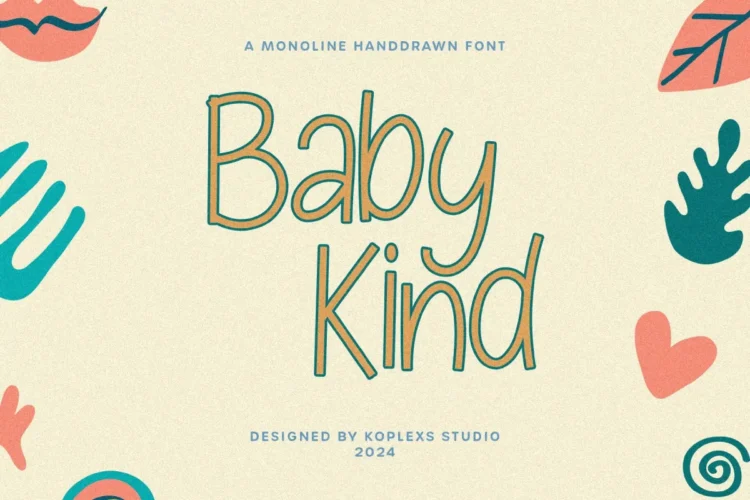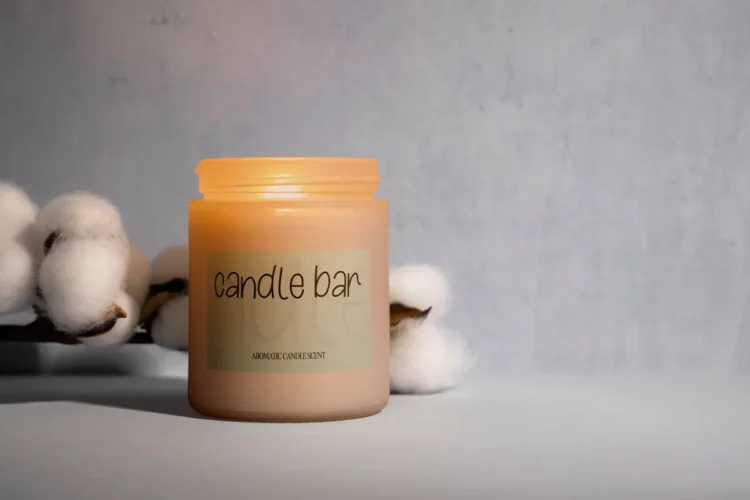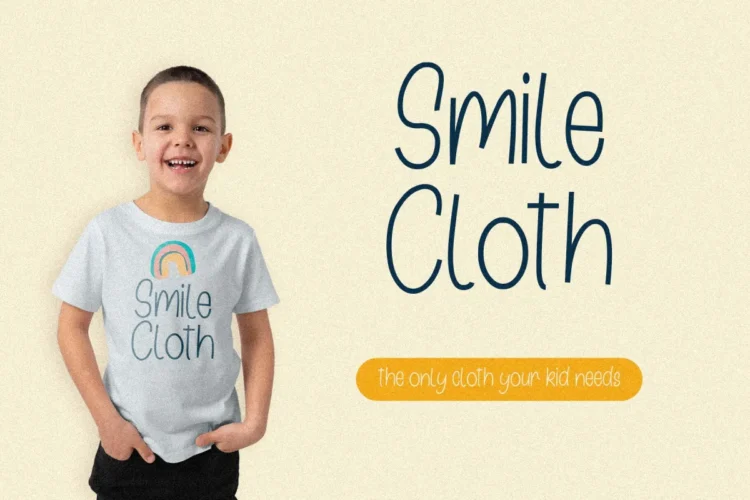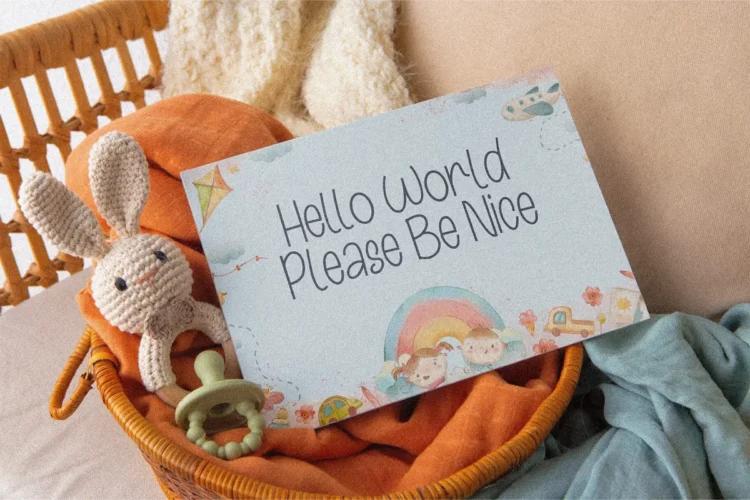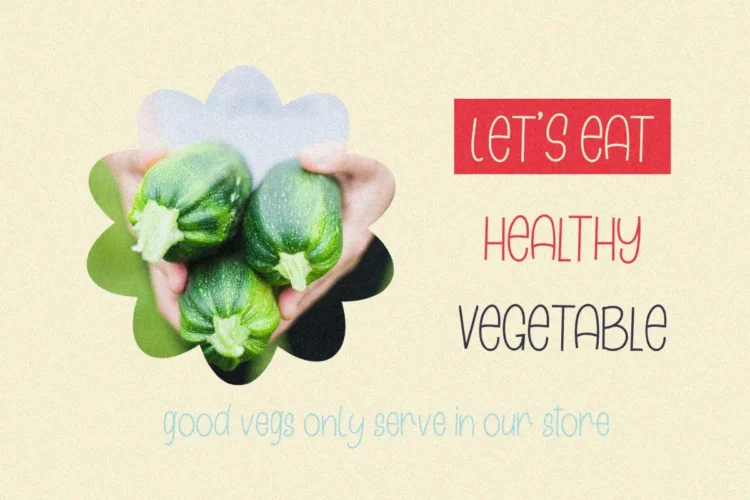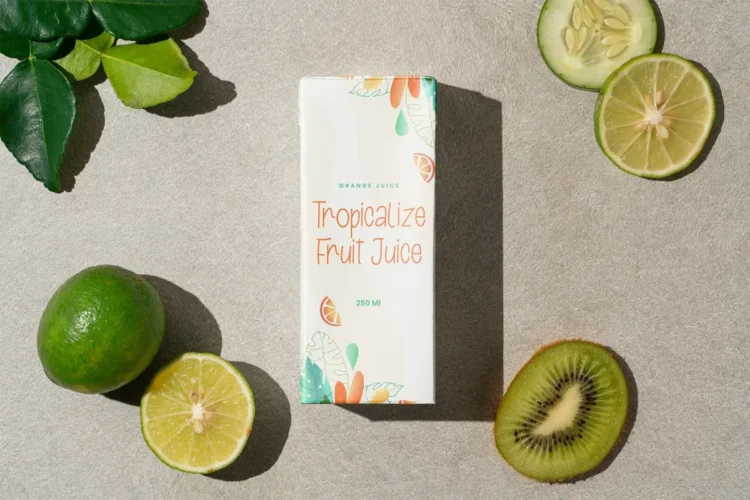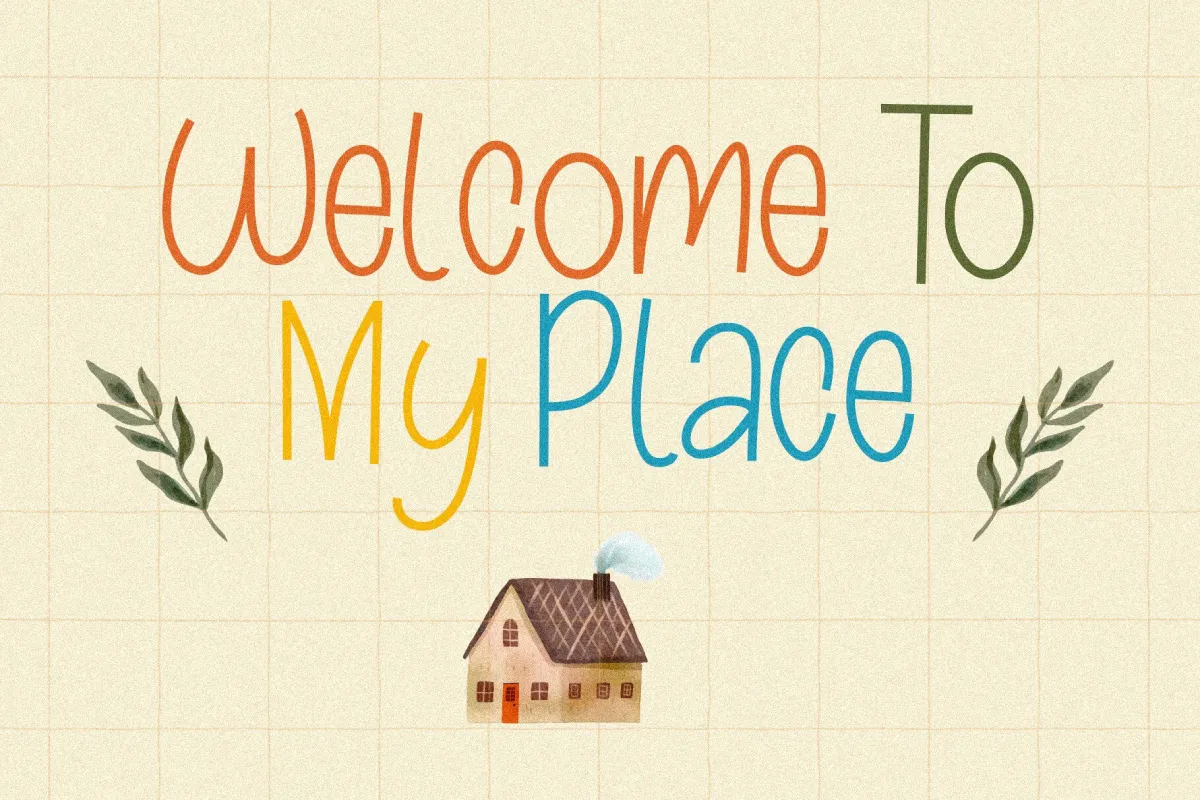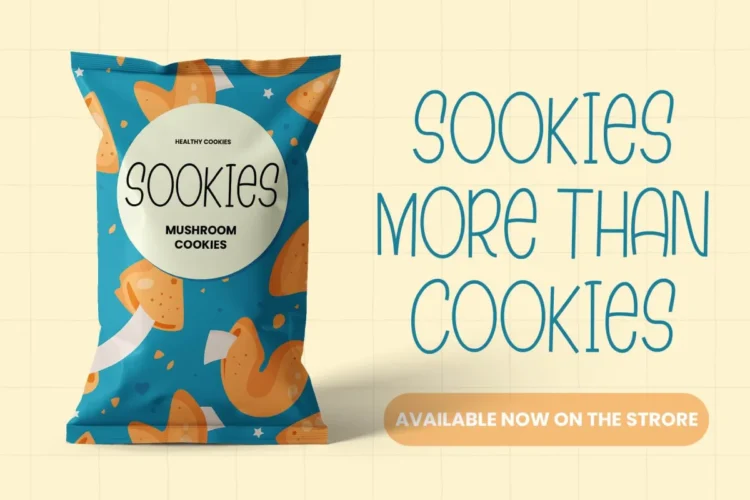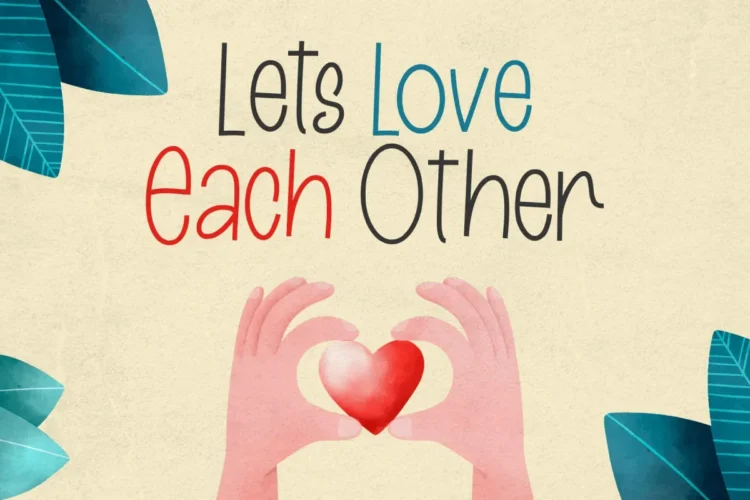
Baby Kind Font
✨ Baby Kind Font – A Cute, Funny, and Handwritten Font for Playful Designs
Meet Baby Kind Font, a monoline handdrawn handwriting font designed to bring happiness, warmth, and creativity into your projects. Its playful curves and friendly strokes make it a cute font and funny font choice for any designer who loves to create cheerful, kid-friendly visuals.
This freaky font perfectly balances simplicity and character, giving every letter a whimsical, handcrafted charm. Whether you’re designing for children’s products or lifestyle brands, Baby Kind Font adds an authentic and joyful touch that stands out effortlessly.
Baby Kind Font is versatile and works beautifully for :
• Kids’ clothing & toy branding
• Book covers & educational materials
• Greeting cards & invitations
• Organic or handmade product packaging
• Social media posts & logos
💛 Baby Kind Font Features:
• Handdrawn monoline handwriting font
• Playful, quirky, and childlike personality
• Smooth readability with a warm aesthetic
• Unique freaky font vibe for creative layouts
Add a spark of kindness, fun, and color to your projects with Baby Kind Font — where every letter feels like a smile.
Baby Kind Font is a delightful handwriting font that blends charm, warmth, and fun! Perfect for kids’ products, branding, quotes, t-shirts, and packaging. This cute font and funny font adds a joyful touch to your designs with its monoline, hand-drawn style, ideal for designers who love a freaky font full of personality.